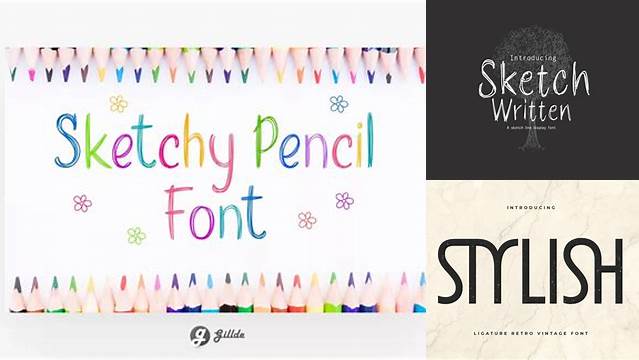
Font Pencil Free: Stylish Typography Guide
Hey everyone! Are you looking for a way to add a touch of creativity and personality to your designs? Look no further! In this article, we'll dive deep into the world of font pencil free options, exploring their amazing capabilities and how you can use them to create stunning visuals. Whether you're a seasoned designer or just starting out, you'll find a wealth of information and inspiration here. We'll cover everything from the best free font pencil options available to tips on how to effectively use them in your projects. Get ready to unleash your inner artist and transform your designs with the power of free font pencil!
The Allure of Font Pencil: Why Choose a Pencil-Style Font?
Guys, let's be real, font pencil free fonts have a unique charm that sets them apart from the standard, sleek fonts we see everywhere. They offer a handcrafted, artistic vibe that instantly adds a personal touch to any project. The beauty of these fonts lies in their ability to evoke a sense of nostalgia, creativity, and authenticity. Imagine using a font pencil free font to create a logo for a vintage shop, a greeting card, or even a website banner. The possibilities are endless! The imperfections and irregularities of a pencil-style font make it feel warm and inviting, drawing the viewer in and making them feel connected to the message. It's like adding a little bit of soul to your designs. In a world dominated by digital perfection, font pencil fonts stand out by embracing the beauty of imperfection. They give your designs a hand-drawn feel, making them more relatable and engaging. These fonts are especially popular in creative fields like art, design, and education, where a personal and approachable aesthetic is highly valued. They're perfect for projects that aim to capture a sense of playfulness, nostalgia, or artistic expression. Using a font pencil free option also shows a certain level of creativity and resourcefulness, which can be an added benefit for designers looking to stand out. Embrace the unique character of a pencil font to elevate your design game!
The Emotional Impact of Font Pencil Designs
When it comes to design, the emotional impact of your choices is crucial. A font pencil free font can evoke a wide range of emotions, depending on the style and usage. For example, a bold, slightly messy pencil font can convey energy, excitement, and a touch of rebelliousness. It's perfect for projects that want to grab attention and make a statement. On the other hand, a delicate and refined pencil font can evoke feelings of nostalgia, warmth, and intimacy. This is perfect for projects that aim to create a sense of connection and trust. The emotional impact of your font choices is also influenced by other design elements, such as color, imagery, and overall composition. A font pencil free font paired with soft colors and hand-drawn illustrations can create a calming and inviting atmosphere. Conversely, a bold pencil font combined with vibrant colors and dynamic imagery can create a sense of energy and excitement. When choosing a font pencil free font, consider the message you want to convey and the emotions you want to evoke. The right font can significantly enhance the impact of your designs and leave a lasting impression on your audience. It's about creating a design that resonates with viewers on a deeper level, fostering an emotional connection that goes beyond mere aesthetics.
Creative Applications of Font Pencil Fonts
So, you've got the basics of why you should love font pencil free fonts, but how do you actually use them? The creative applications of these fonts are vast and varied, making them a versatile asset for any designer. They're perfect for creating logos that feel handcrafted and unique. Imagine designing a logo for a local coffee shop using a stylish font pencil free option, it gives your brand an identity and artistic flair. For invitations and greeting cards, these fonts add a personal touch that makes them more memorable and special. Think of a wedding invitation with a beautifully drawn pencil font, creating a sense of warmth and intimacy. Website design and branding: Use them for headings, subheadings, and even body text to create a consistent and artistic aesthetic throughout your website. Social media graphics: Make your posts stand out with unique text overlays using font pencil free options to add a creative vibe. The applications are endless! They work wonderfully for educational materials, adding a playful and engaging element to textbooks, worksheets, and presentations. For packaging design, use them to create a sense of authenticity and craftsmanship. Embrace the versatility of font pencil free fonts and experiment with different styles and combinations to unlock your creative potential. There's no limit to what you can achieve.
Where to Find the Best Free Font Pencil Options
Alright, you're probably wondering,